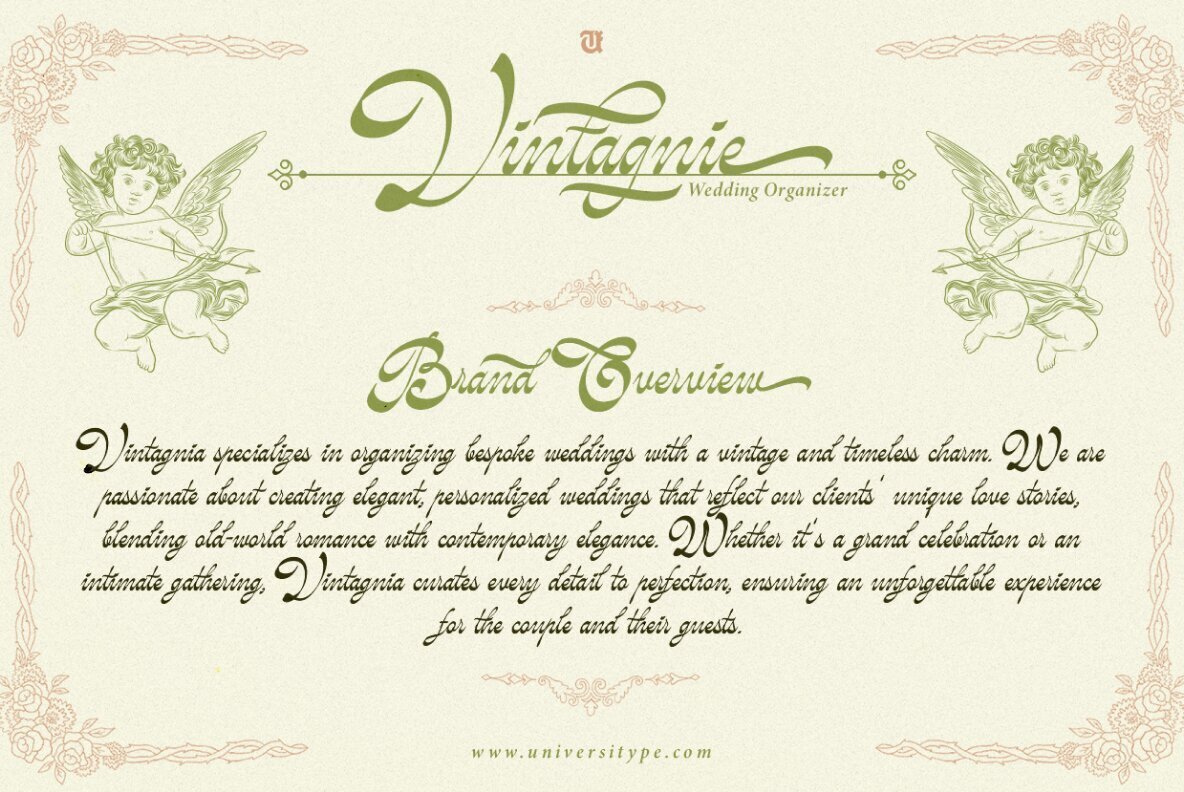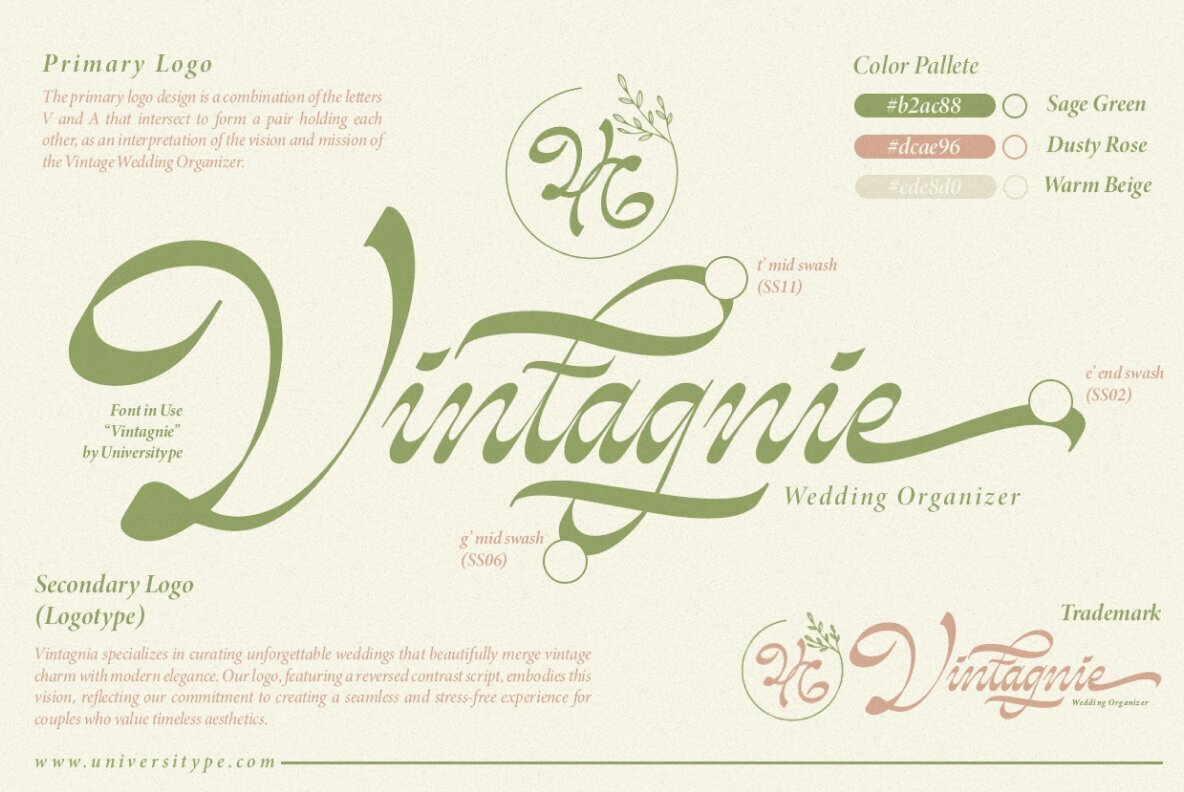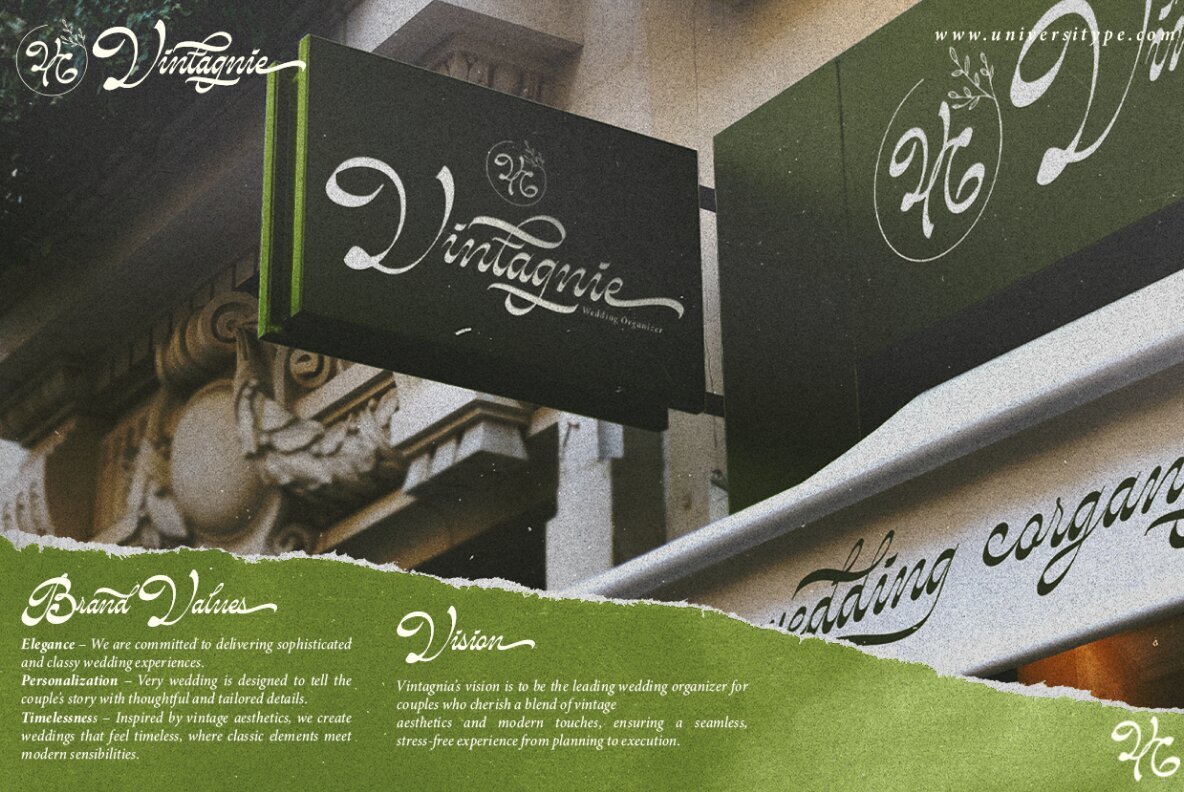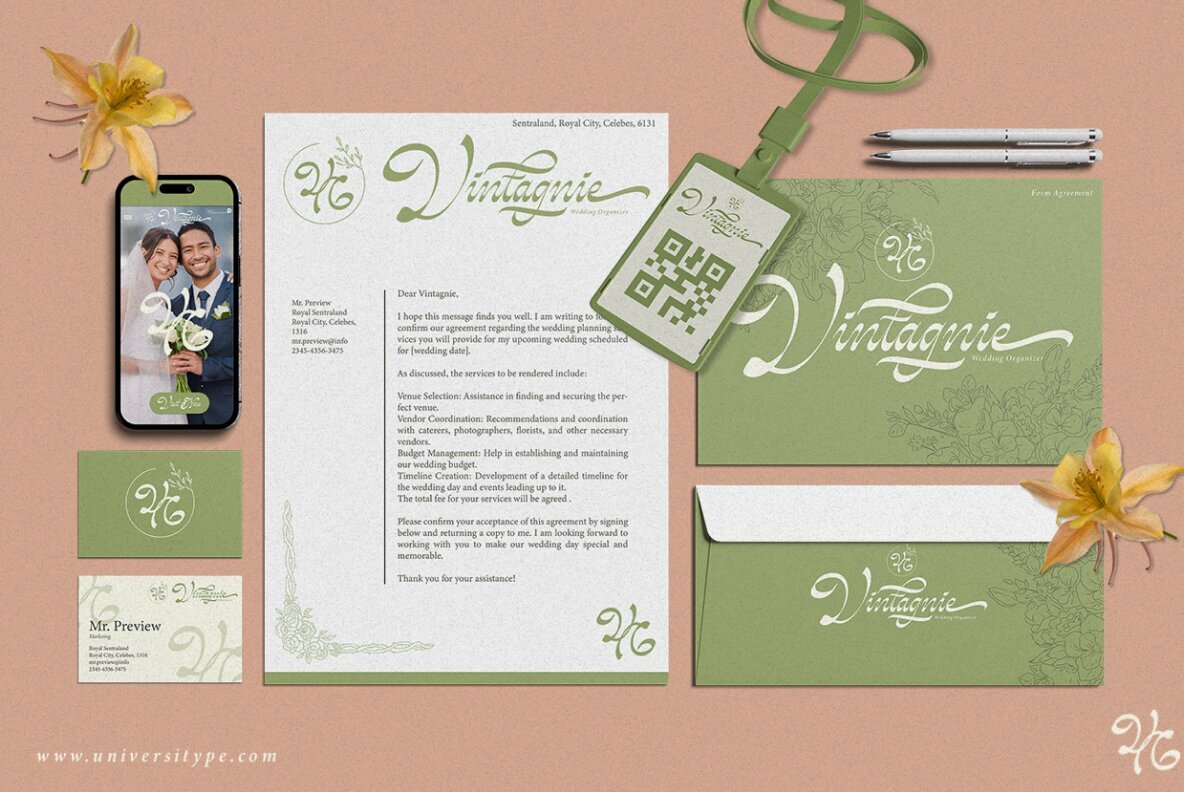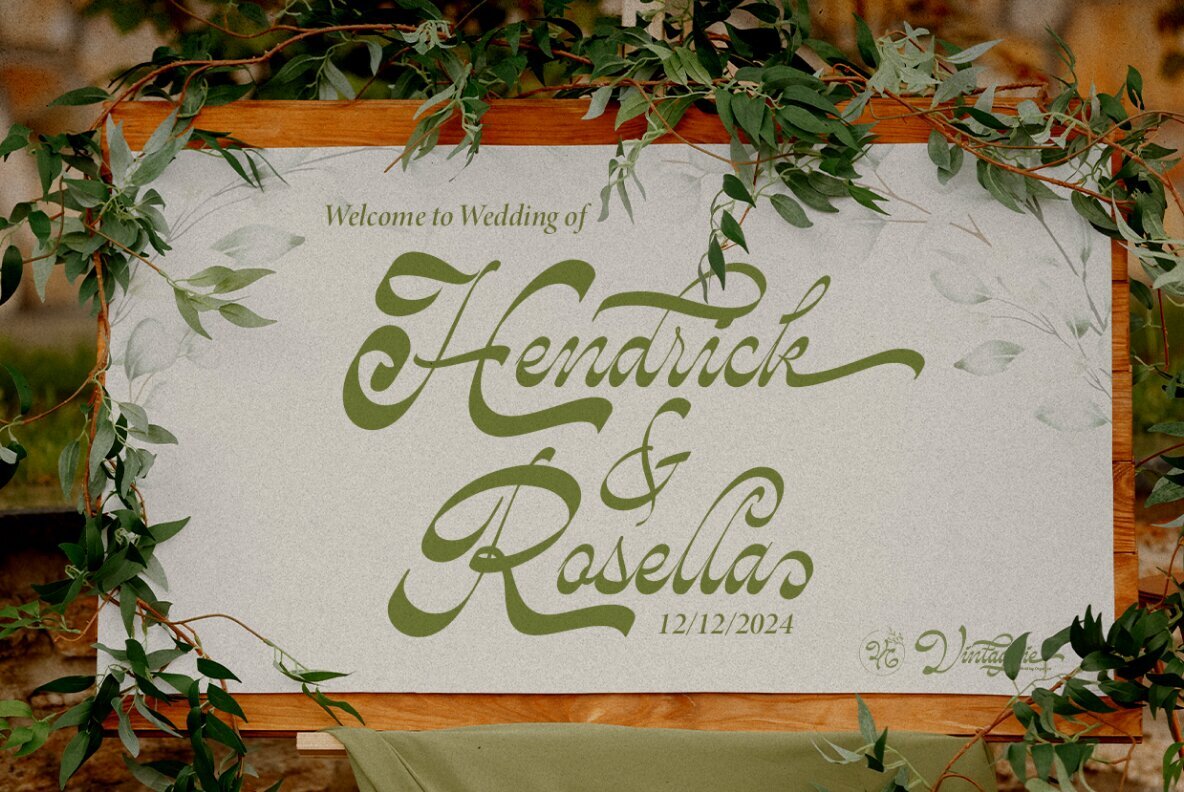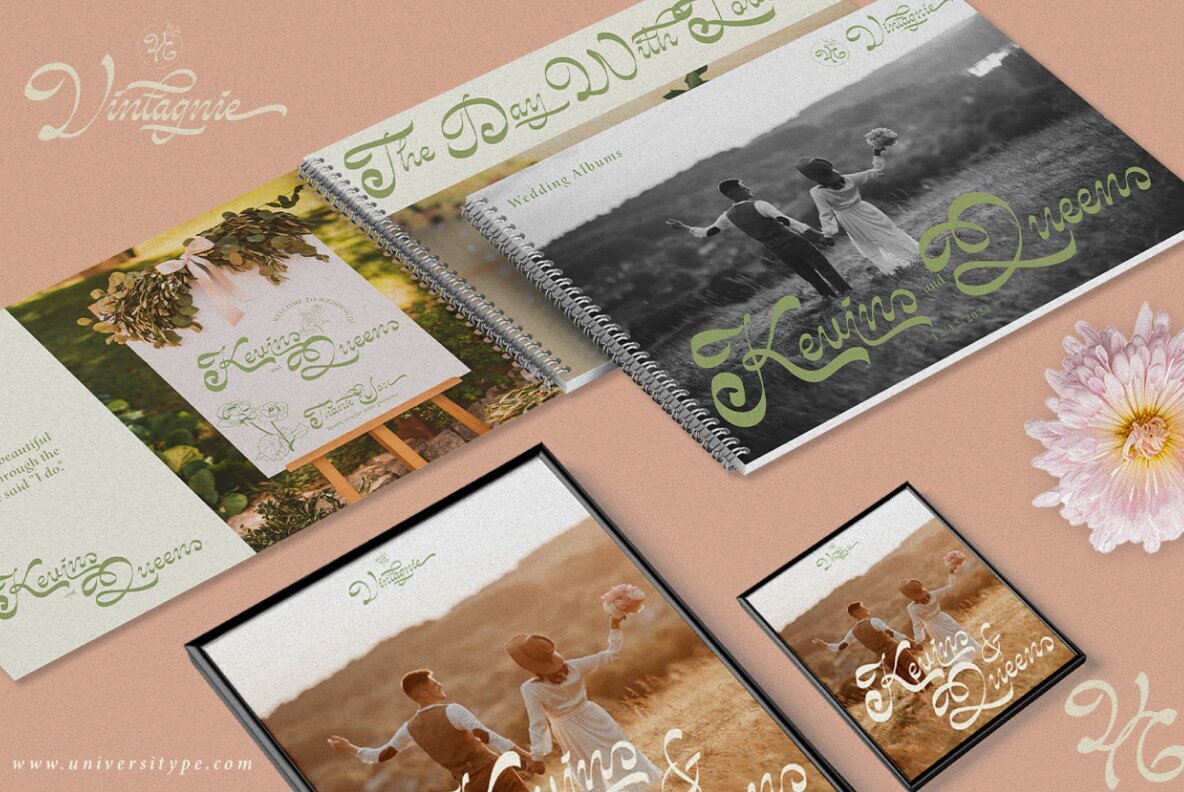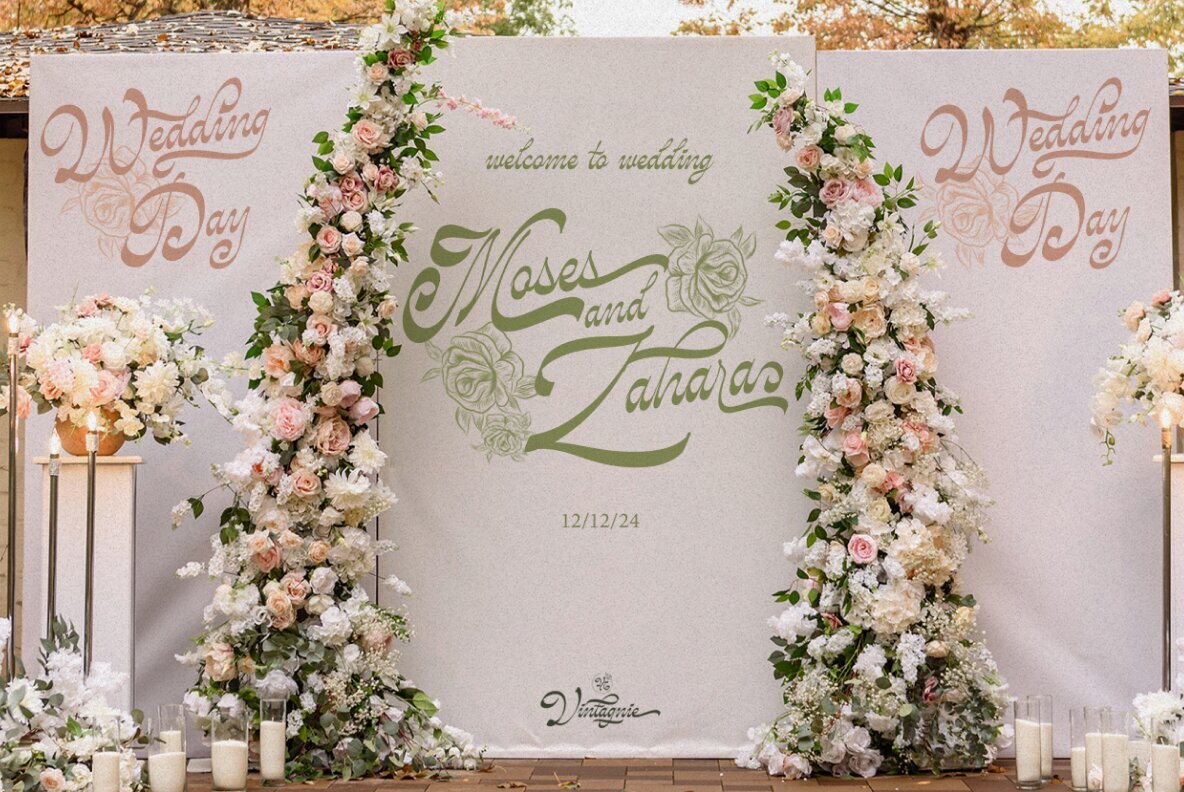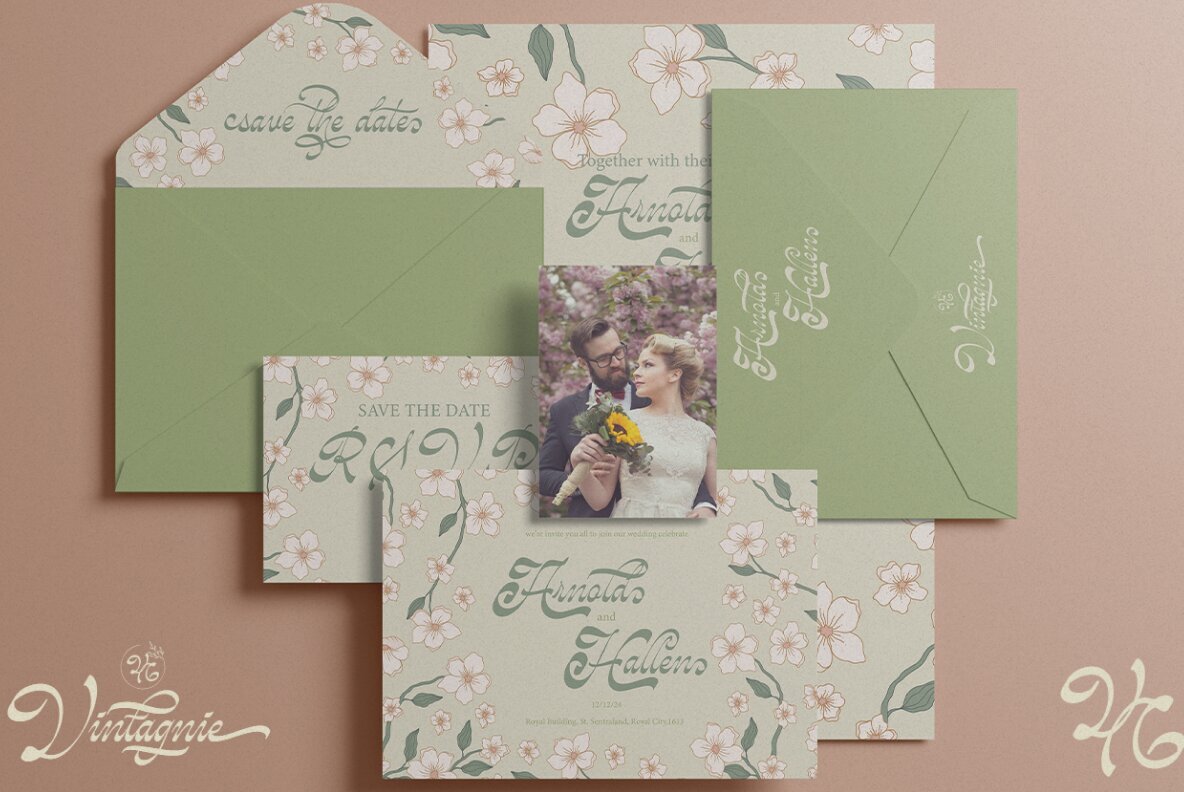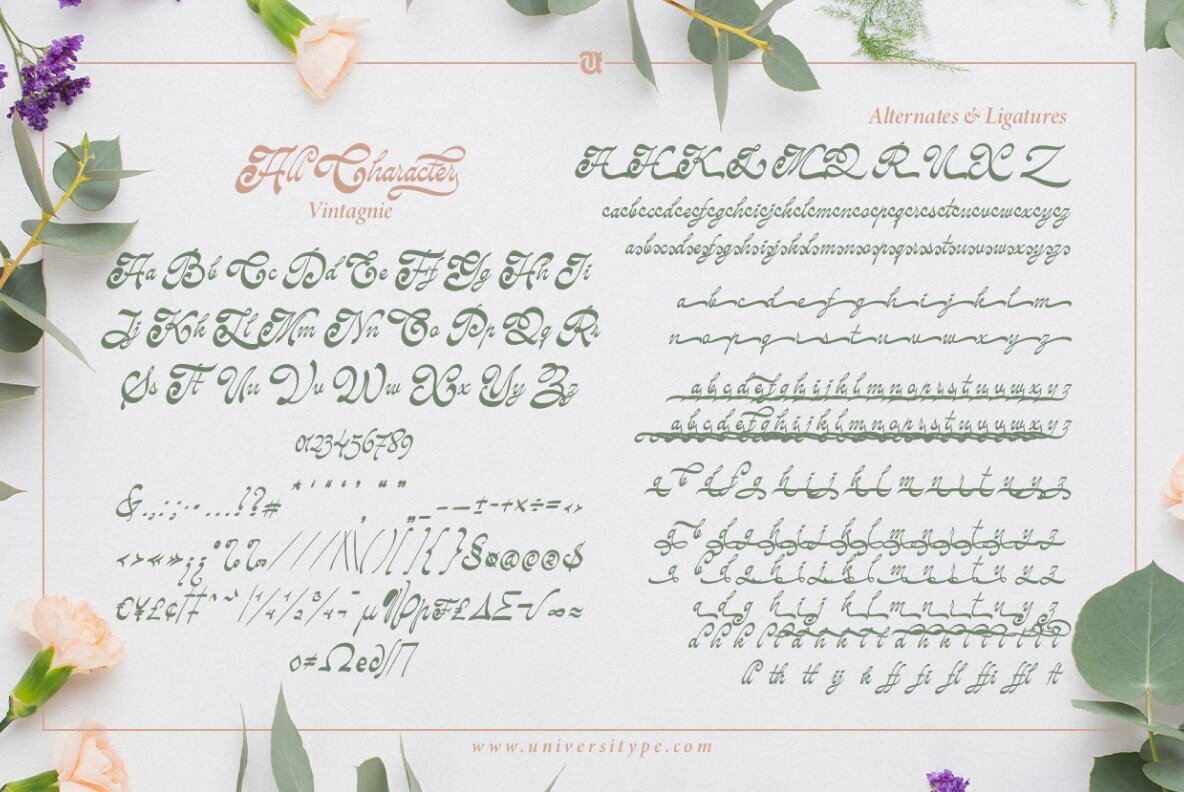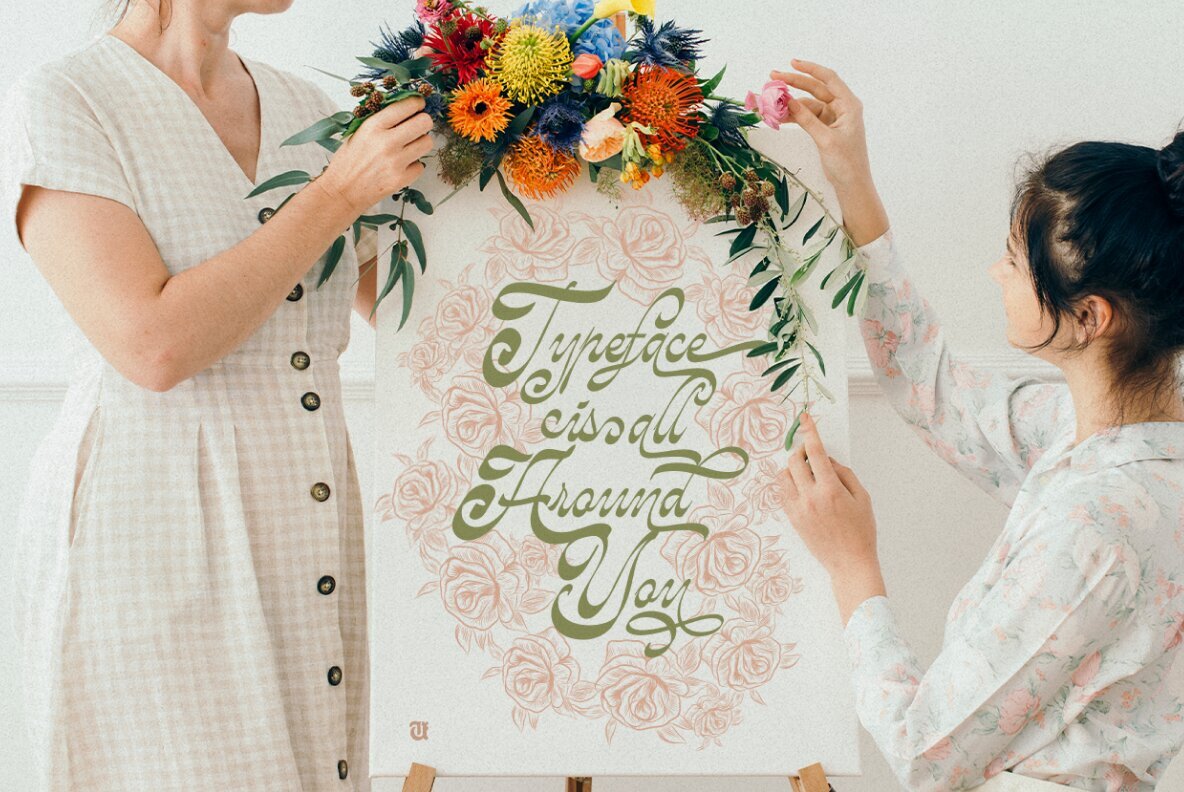
UT Vintagnie Font
UT Vintagnie Regular
UT Vintagnie is a vintage script font that expertly merges timeless elegance with nostalgic design, perfect for adding a refined touch to your creative projects. Its graceful curves and flowing strokes evoke classic lettering styles, offering a blend of old-world charm with modern sophistication. The intricate details of UT Vintagnie transport viewers to an era of elegance, making it an ideal choice for those seeking to infuse a sense of nostalgia into their work.
The font stands out for its extensive array of alternates, ligatures, and stylistic options, providing designers with limitless customization possibilities. Whether it's branding for a luxury product, personalized wedding invitations, or an editorial layout, UT Vintagnie's stylish lettering adds a unique character to each letterform. The romantic features, such as its swashes and smooth curves, allow you to make a bold yet delicate statement. Whether your project aims for a sophisticated or nostalgic feel, this font offers the versatility needed to realize your design ambitions.